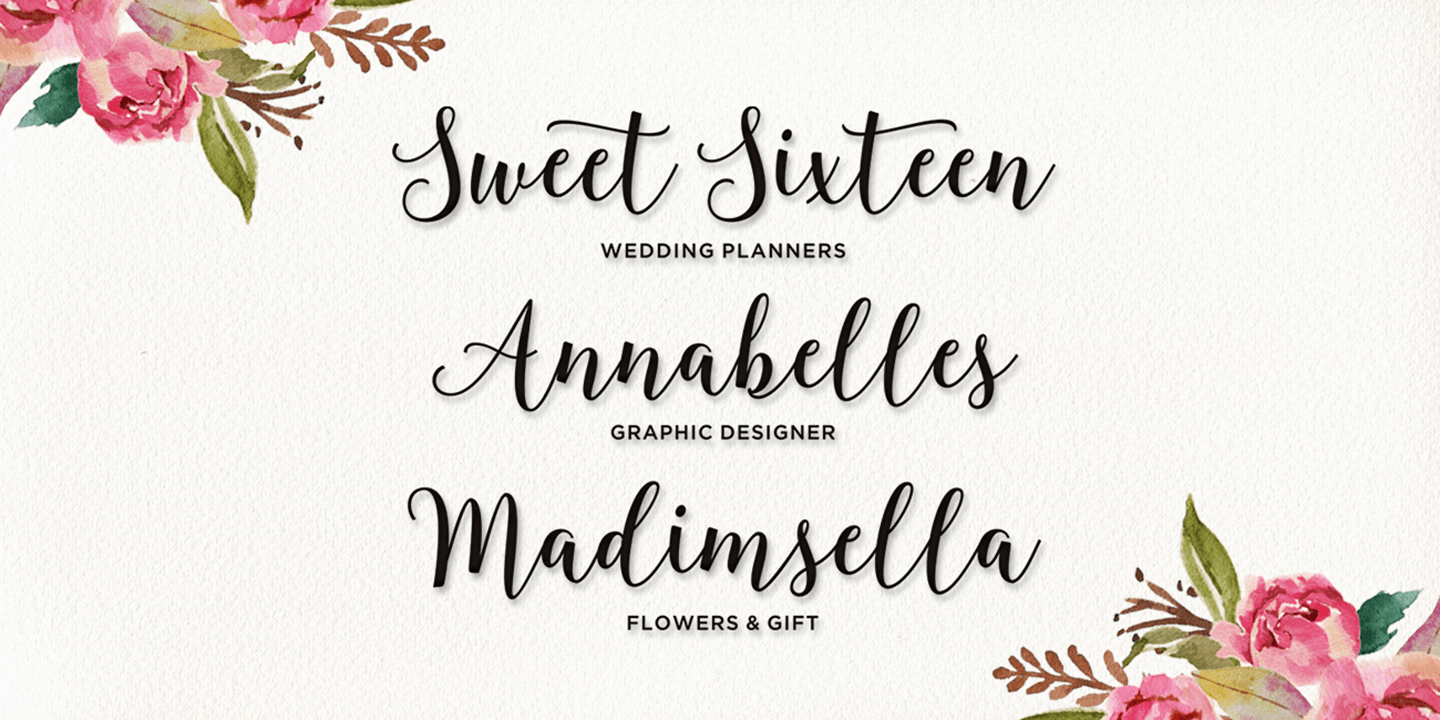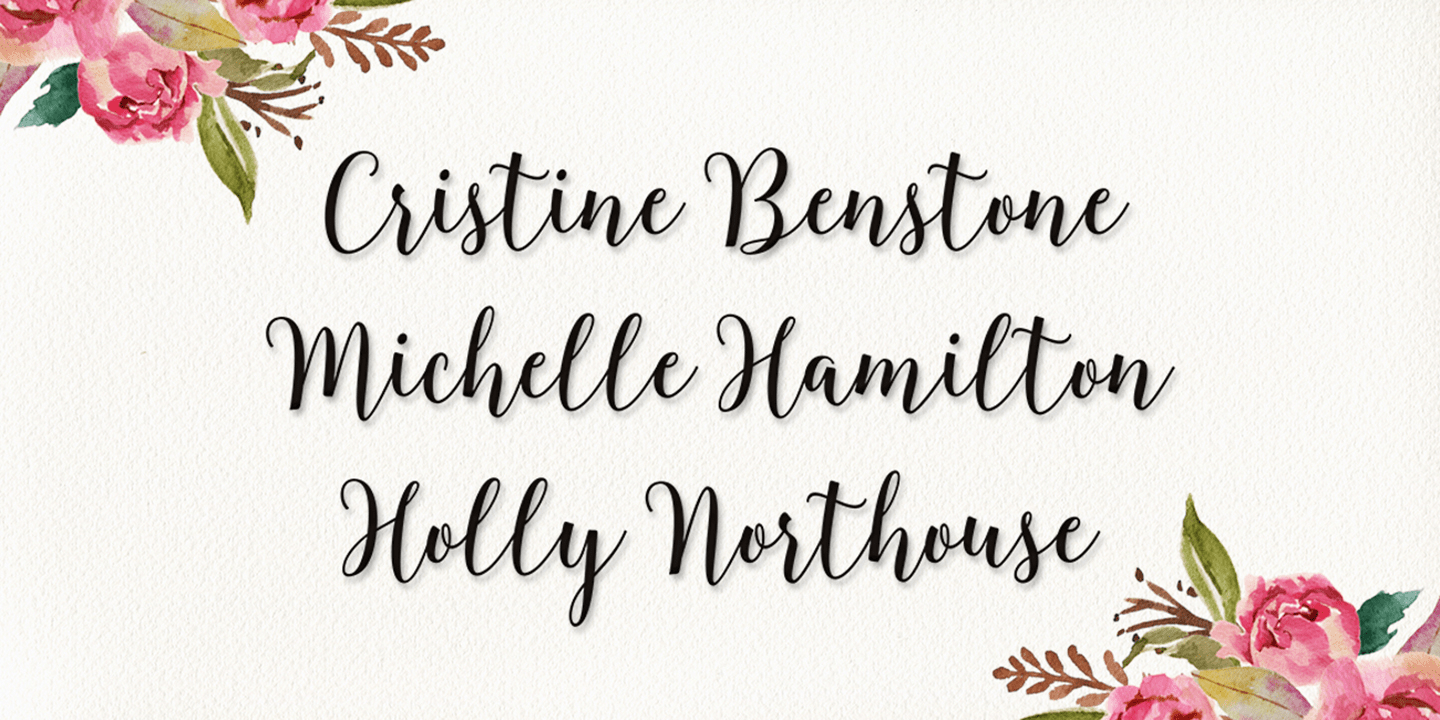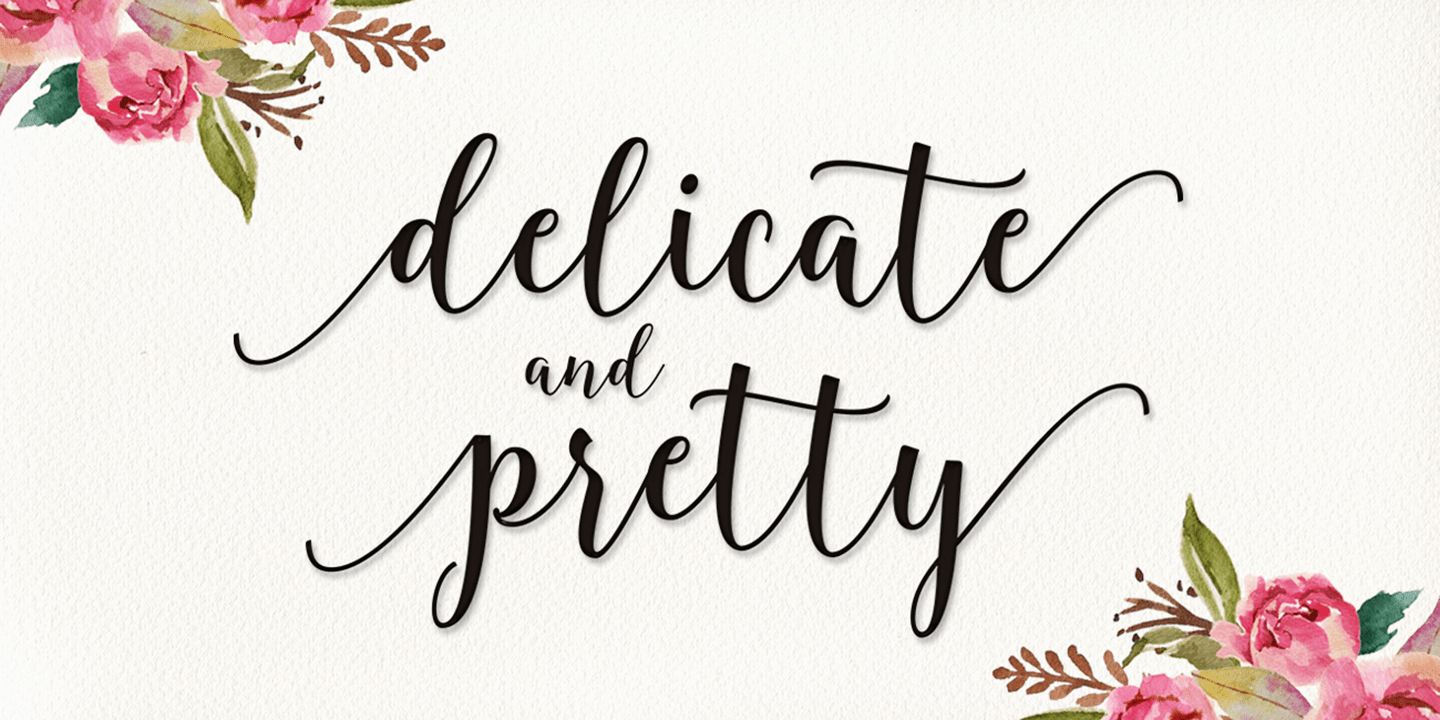
Blingtastic Script
Blingtastic Script is a modern & clean calligraphy script. Its characters dance along the baseline while it still has an elegant touch. It can be used for various purposes such as logos, wedding invitations, headings, t-shirt, letterheads, signage, labels, news, posters, badges etc.